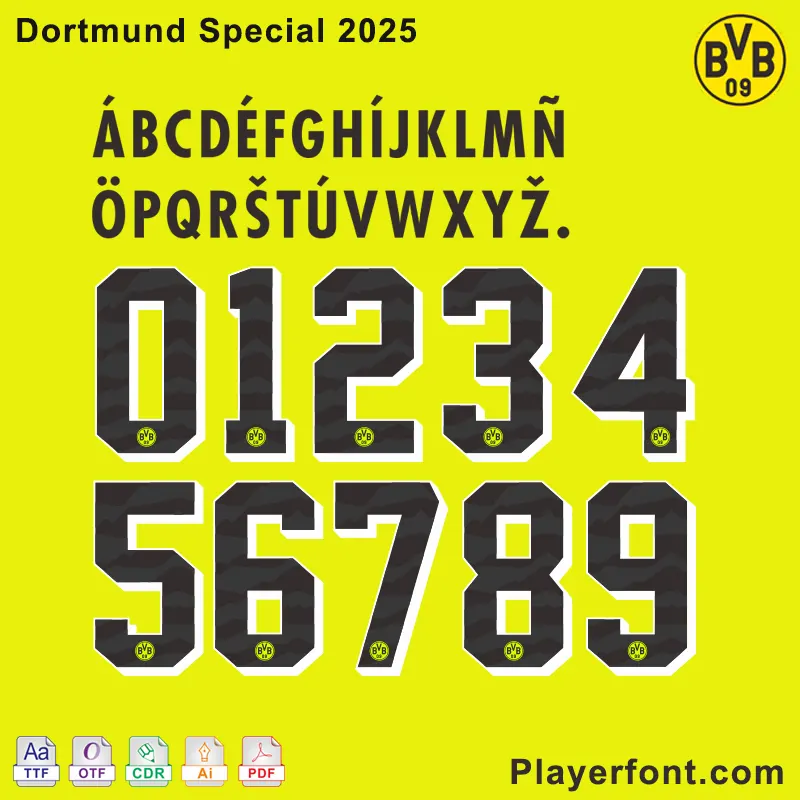
Discover the unique ‘Dortmund Special 2025’ font, perfect for adding a distinctive touch to your design projects. This font is available for download in multiple formats, including TTF, OTF, CAR, AI, and PDF, ensuring compatibility across various platforms and software. Whether you’re working on graphic design, branding, or any creative endeavor, the ‘Dortmund Special 2025’ font provides a modern and stylish aesthetic. Download now to elevate your design work.